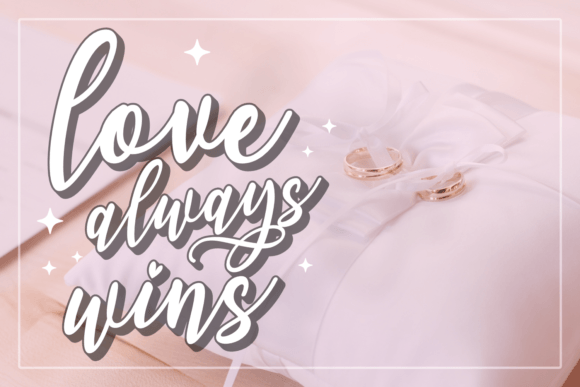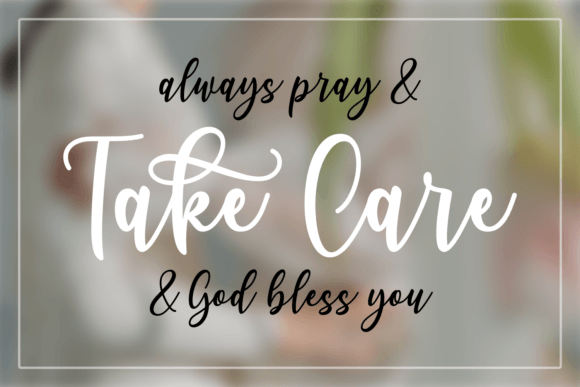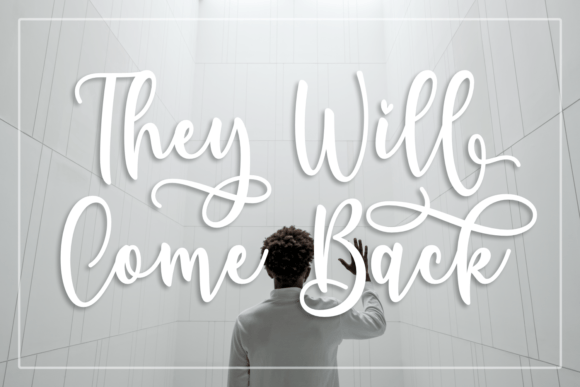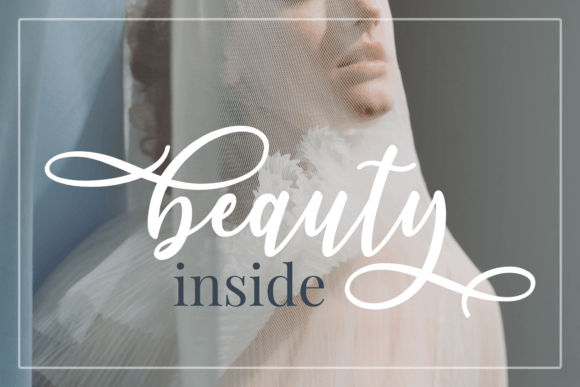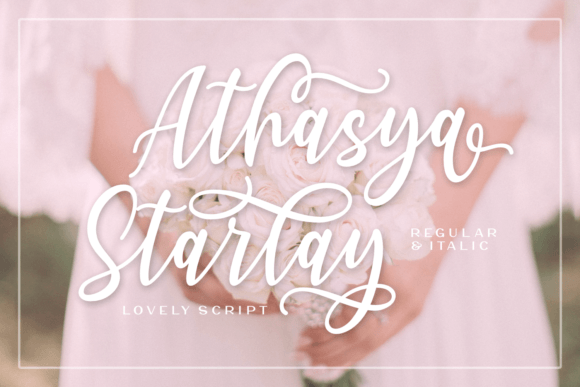
Athasya Starlay Font: Elevate Your Designs with Elegance and Romance
Are you looking for a font that can add a touch of elegance and romance to your designs? Look no further than the Athasya Starlay Font. This beautiful script font is perfect for designers and crafters who want to take their work to the next level. With its elegant glyphs, swashes, and italic version, Athasya Starlay is the ideal choice for a variety of design projects.
What Makes Athasya Starlay Font Special?
Athasya Starlay Font is a stunning script font that features:
- Elegant Glyphs: The font includes a wide range of elegant glyphs that are perfect for creating beautiful and sophisticated designs.
- Swashes: Add a touch of drama and flair to your designs with the font’s beautiful swashes.
- Italic Version: The font also includes an italic version, which provides even more flexibility and options for your designs.
Athasya Starlay Font is versatile and can be used for a wide range of design projects, including:
- Wedding Invitations: Create beautiful and romantic wedding invitations that will set the tone for the special day.
- Greeting Cards: Add a touch of elegance and sophistication to your greeting cards, making them perfect for special occasions.
- Logos: Use Athasya Starlay Font to create stunning logos that will help your brand stand out.
- Stationery: Create beautiful stationery, including letterheads, envelopes, and more.
Why Choose Athasya Starlay Font?
There are many reasons why Athasya Starlay Font is the perfect choice for designers and crafters:
- Unique and Elegant: The font’s unique and elegant design makes it perfect for creating stunning designs that will stand out.
- High-Quality: The font is of high quality, ensuring that your designs will look professional and polished.
- Easy to Use: The font is easy to use, even for those who are new to design.
Tips for Using Athasya Starlay Font
Here are some tips for using Athasya Starlay Font:
- Experiment with Swashes: Don’t be afraid to experiment with the font’s swashes to add a touch of drama and flair to your designs.
- Pair with Other Fonts: Pair Athasya Starlay Font with other fonts to create stunning and unique designs.
- Use on Different Backgrounds: Try using the font on different backgrounds to see how it looks.
Athasya Starlay Font is a beautiful and romantic script font that is perfect for designers and crafters who want to take their work to the next level. With its elegant glyphs, swashes, and italic version, this font is ideal for a variety of design projects. Whether you’re creating wedding invitations, greeting cards, logos, or stationery, Athasya Starlay Font is the perfect choice. So why wait? Try Athasya Starlay Font today and see the difference it can make in your designs!
- Elegant glyphs and swashes
- Italic version
- Perfect for wedding invitations, greeting cards, logos, and more